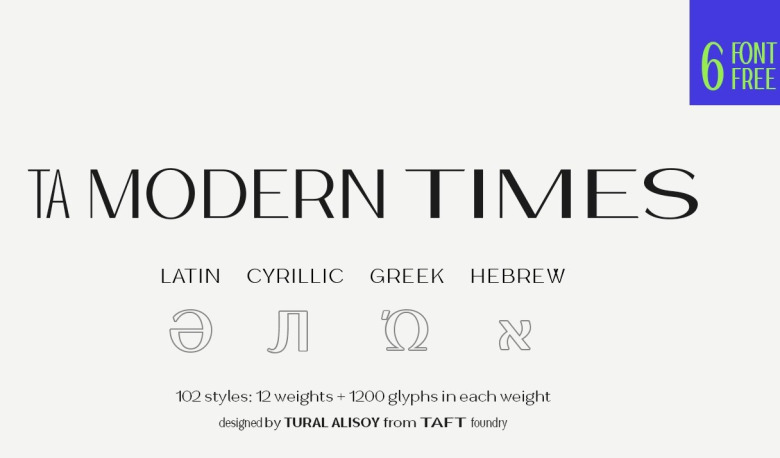
TA Modern Times Font
TA Modern Times Font is a contemporary minimal sans-serif font with a feminine and elegant aesthetic. Its OpenType features include 1200 glyph, Stylistic Alternates, Stylistic Set 01–12, Standard and Discretionary Ligatures, Numerators, Denominators, Subscript, Superscript, Ordinals, Contextual Alternates and Kerning. Designed to suit modern and clean designs for web, branding, packaging, publications, and more.
TA Modern Times Sans Serif Font